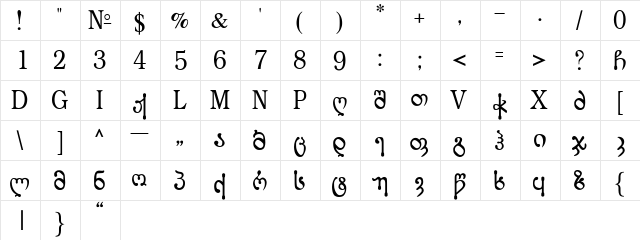
Lordkipanidze TT Regular
Design Context for Lordkipanidze TT Typeface
Lordkipanidze TT takes a measured approach to typography — its balanced proportions and neutral character make it a reliable workhorse for both digital and print work.